50 Perfect Font Combinations to Kickstart Your Next Design
When it comes to graphic design, fonts play an integral role. But if you’re not a designer, you might be asking yourself:
“What fonts actually go well together?”
Not to worry! In this post, we’ve laid out 50 perfect font combinations that you can use in your designs today. Of course, all fonts mentioned in this post are included in Snappa.
Now before we begin, let’s go over some quick terminology so you can better follow the different font combinations that we outline in this post.
Serif: Serif typefaces are those in which a small line is attached at the end of the stroke in a letter or symbol.
Sans-Serif: Sans serif typefaces are those that do not contain serifs at the end of strokes. Hence the term “sans-serif.”
Scripts: Script typefaces are those in which many characters have strokes that join them to other letters similar to cursive handwriting.
Here’s a visual representation of the different types of fonts discussed in this post.
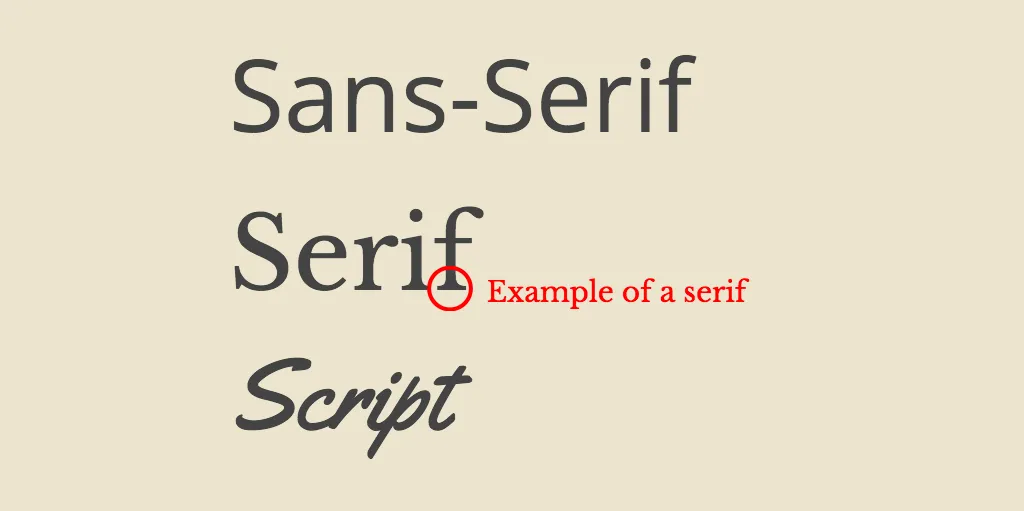
With that out of the way, let’s move on to the 50 perfect font combinations to kickstart your next design.
Sans-Serif / Serif Combinations
1. Josefin Sans / Playfair
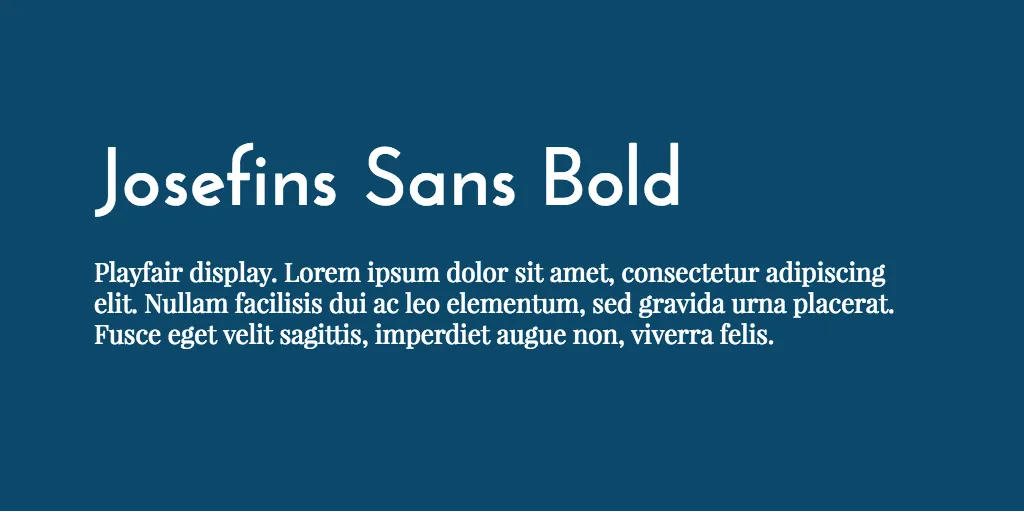
2. Lato / Merriweather
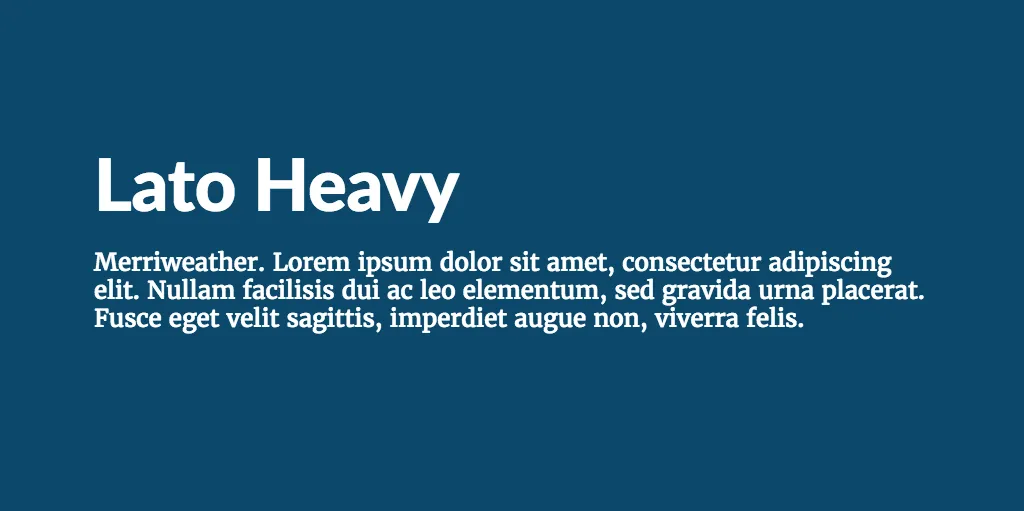
3. Montserrat / Cardo
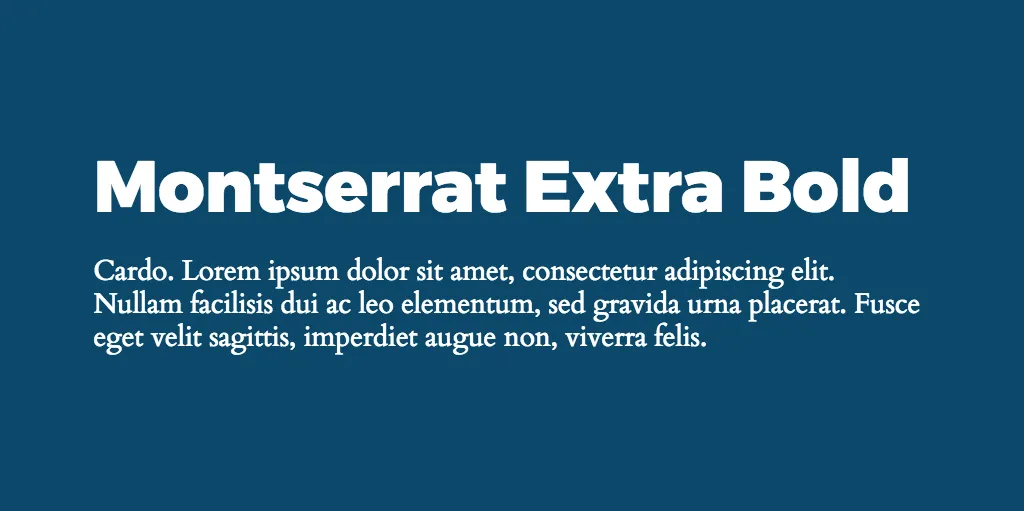
4. Montserrat / Playfair Display
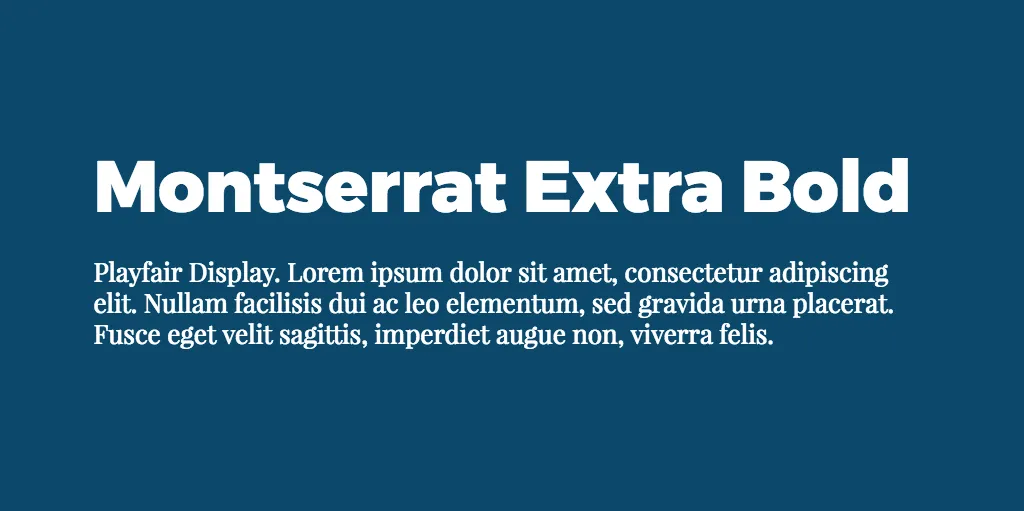
5. Nunito / Lora
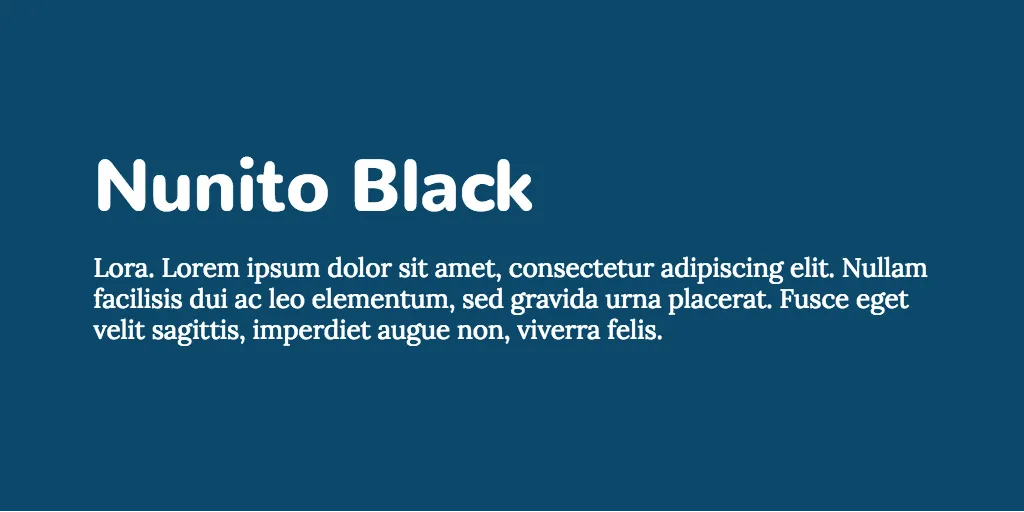
6. Open Sans / Libre Baskerville
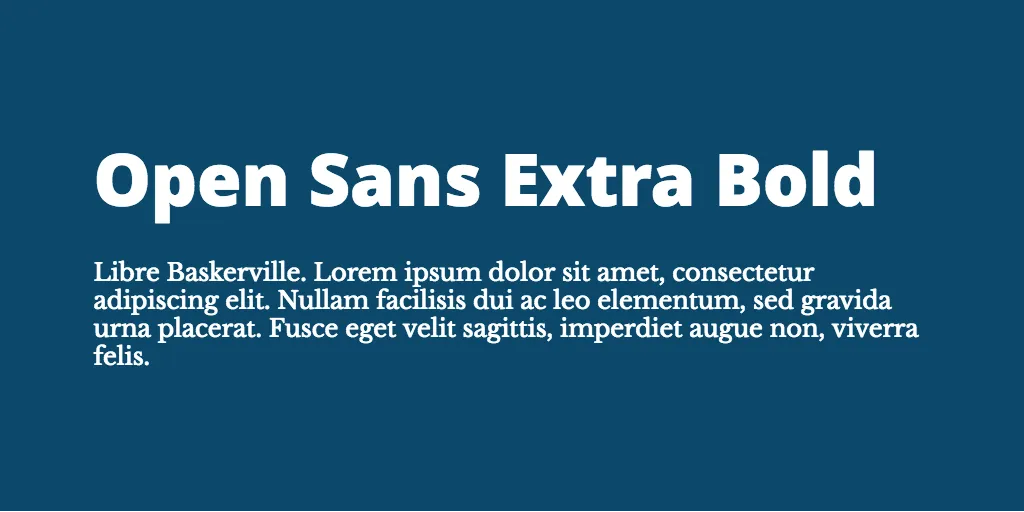
7. Open Sans / Lora
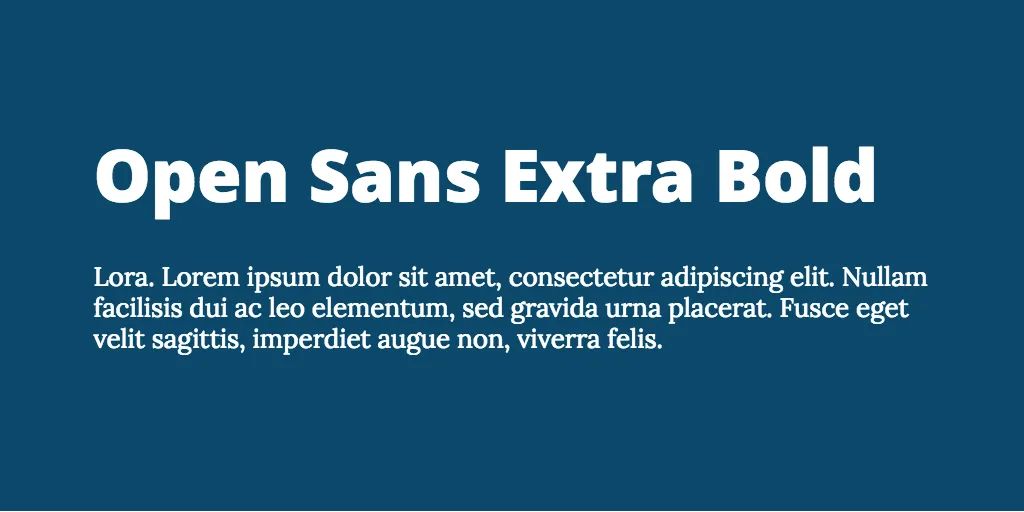
8. Oswald / Merriweather
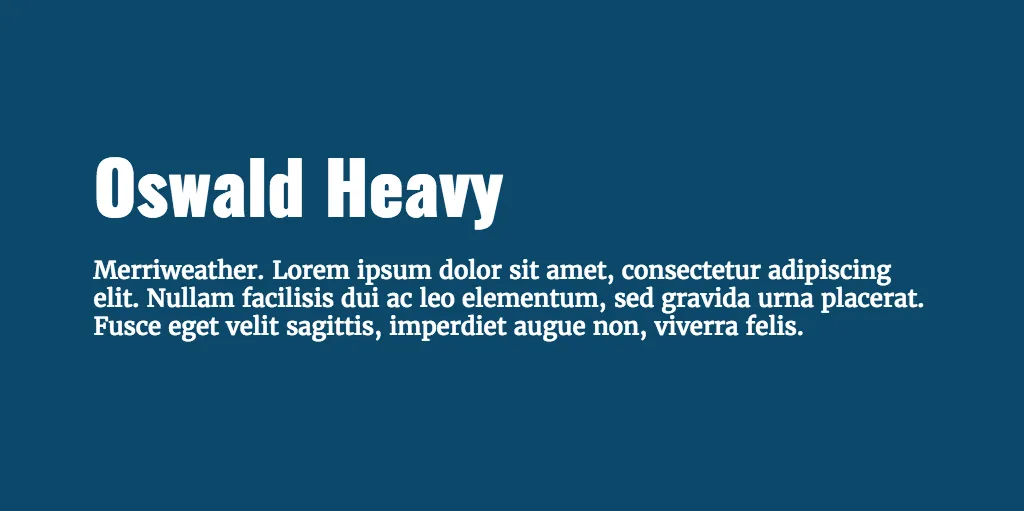
9. Oswald / Old Standard TT
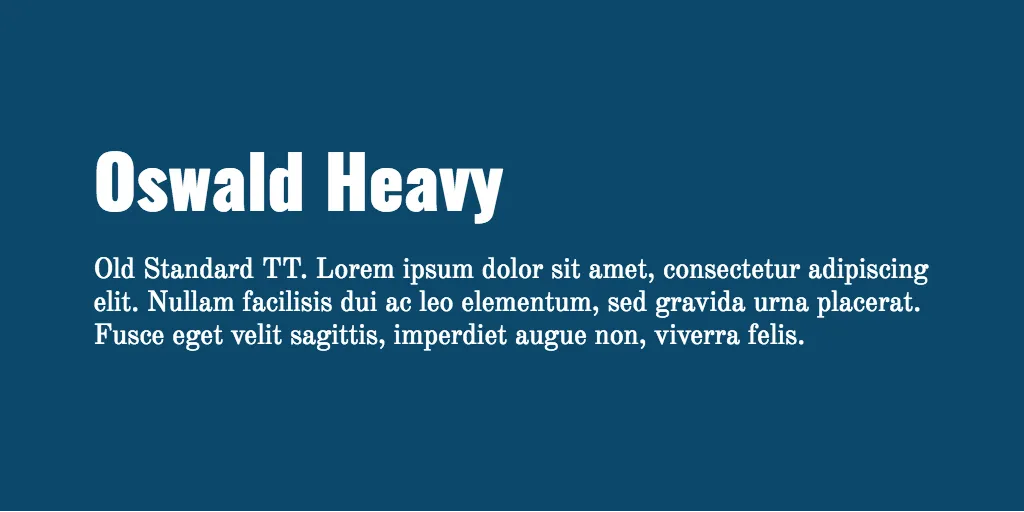
10. PT Sans / PT Serif
11. Raleway / Merriweather
12. Ubuntu / Lora
13. League Spartan / Libre Baskerville
Serif / Sans-Serif Combinations
14. Cardo / Josefin Sans
15. Libre Baskerville / Montserrat
16. Lora / Source Sans Pro
17. Merriweather / Open Sans
18. Merriweather / Source Sans Pro
19. Playfair Display / Open Sans
20. PT Serif / Open Sans
21. Roboto Slab / Open Sans
22. Roboto Slab / Roboto
23. Source Serif Pro / Source Sans Pro
Scripts & Decorative / Sans-Serif Combinations
24. Abril Fatface / Josefin Sans
25. Abril Fatface / Lato
26. Amatic SC / Josefin Sans
27. Lobster / Arimo
28. Lobster / Open Sans
29. Pacifico / Arimo
30. Pacifico / Josefin Sans
31. Patua One / Oswald
32. Shadows / Roboto
33. Stint Ultra / Roboto
34. Sacramento / Montserrat Light
35. Yellowtail / Open Sans
Scripts & Decorative / Serif Combinations
36. Patua One / Lora
37. Nixie One / Libre Baskerville
Sans-Serif / Sans-Serif
38. Nunito / Open Sans
39. Open Sans / Nunito
40. Oswald / Open Sans
41. Raleway / Roboto
42. Roboto / Nunito
43. Oswald / Montserrat Light
44. Open Sans / Cooper Hewitt
Serif / Serif Combinations
45. Playfair Display / Fauna One
46. Quando / Judson
Font Variants
47. Aileron Heavy / Aileron Light
48. Archivo Black / Archivo Narrow
49. Cooper Hewitt Heavy / Cooper Hewitt
50. Source Serif Pro Black / Source Serif Pro
Conclusion